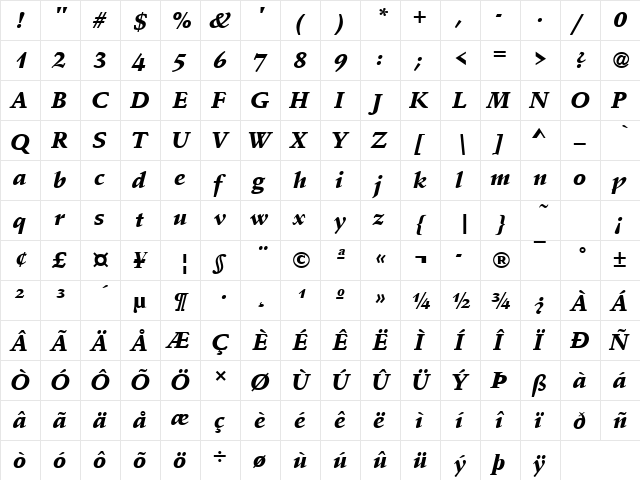
SchneidlerAmaTBla Italic Font Preview
SchneidlerAmaTBla Italic
SchneidlerAmaTBla Italic Font Details
Design Context for SchneidlerAmaTBla Typeface
SchneidlerAmaTBla offers clean, dependable letterforms without strong stylistic allegiance, making it a practical choice for designers who need flexibility. The dynamic lean of this cut emphasises speed and emphasis in any layout.
Pro Tip: Try SchneidlerAmaTBla for annotation and caption copy alongside an upright companion — the contrast in angle creates a dynamic but ordered typographic system.